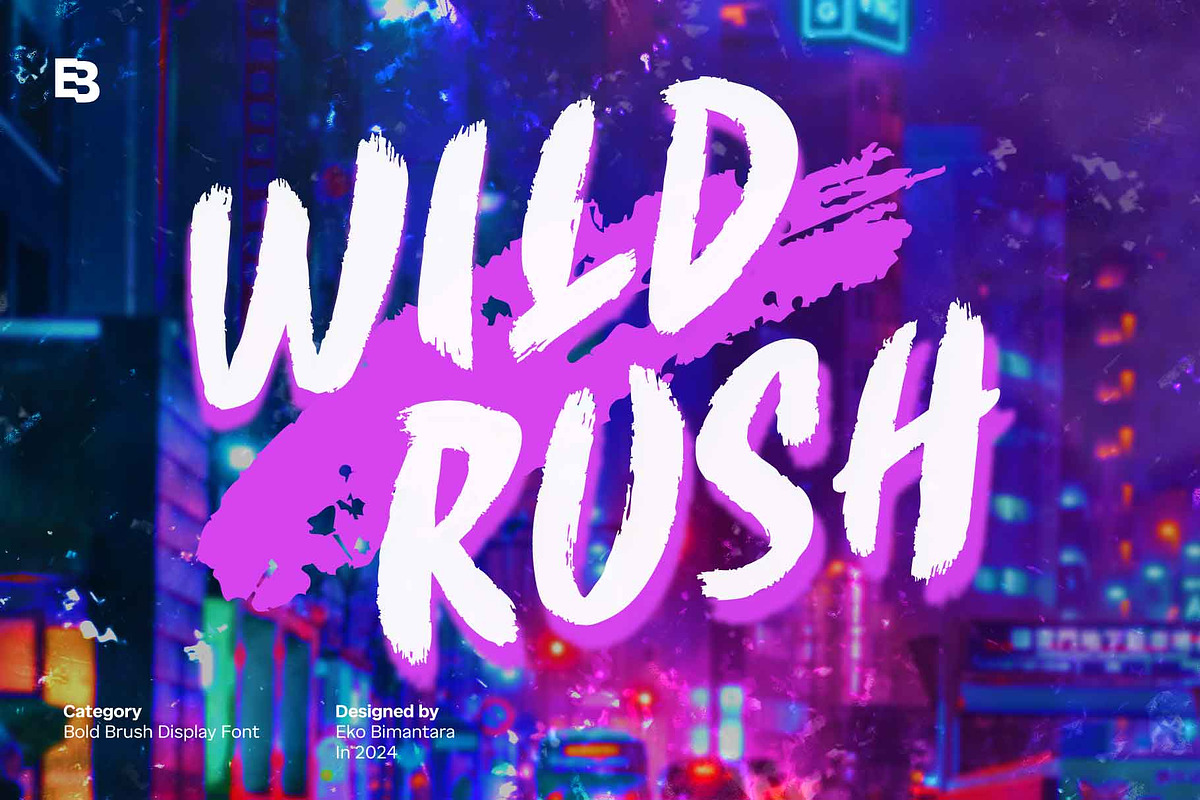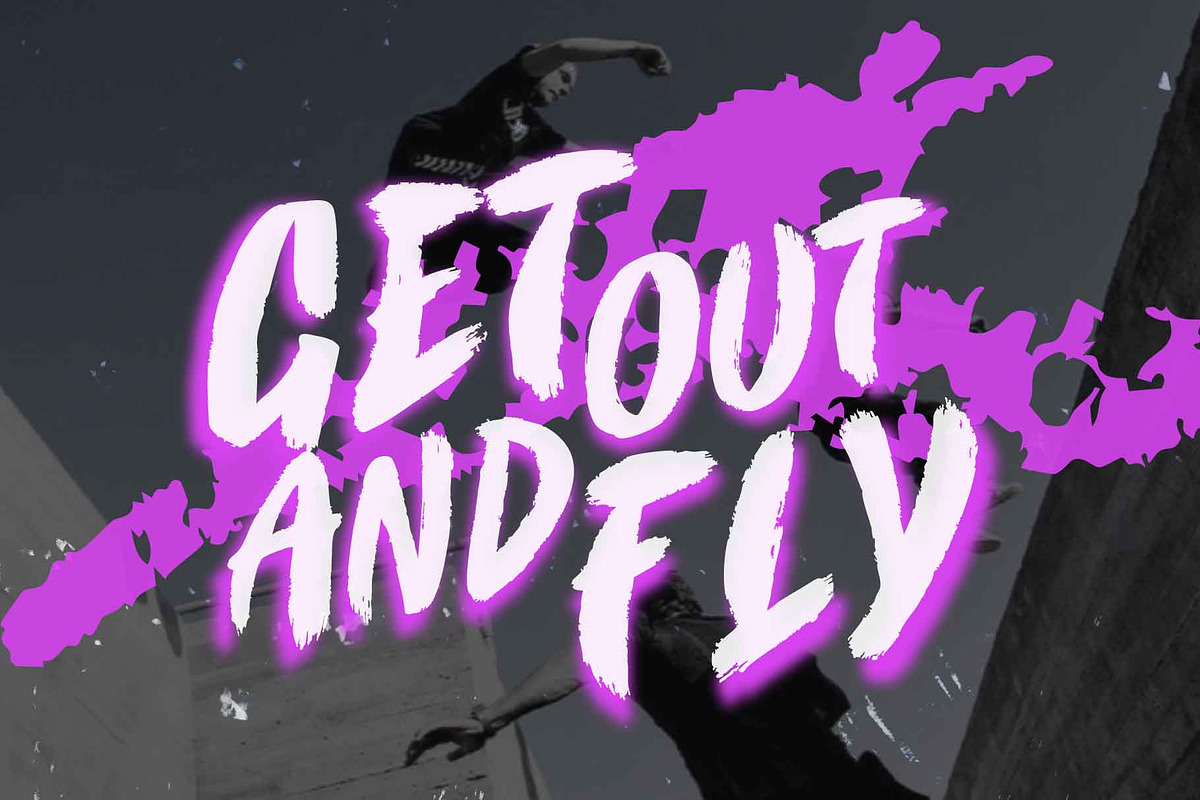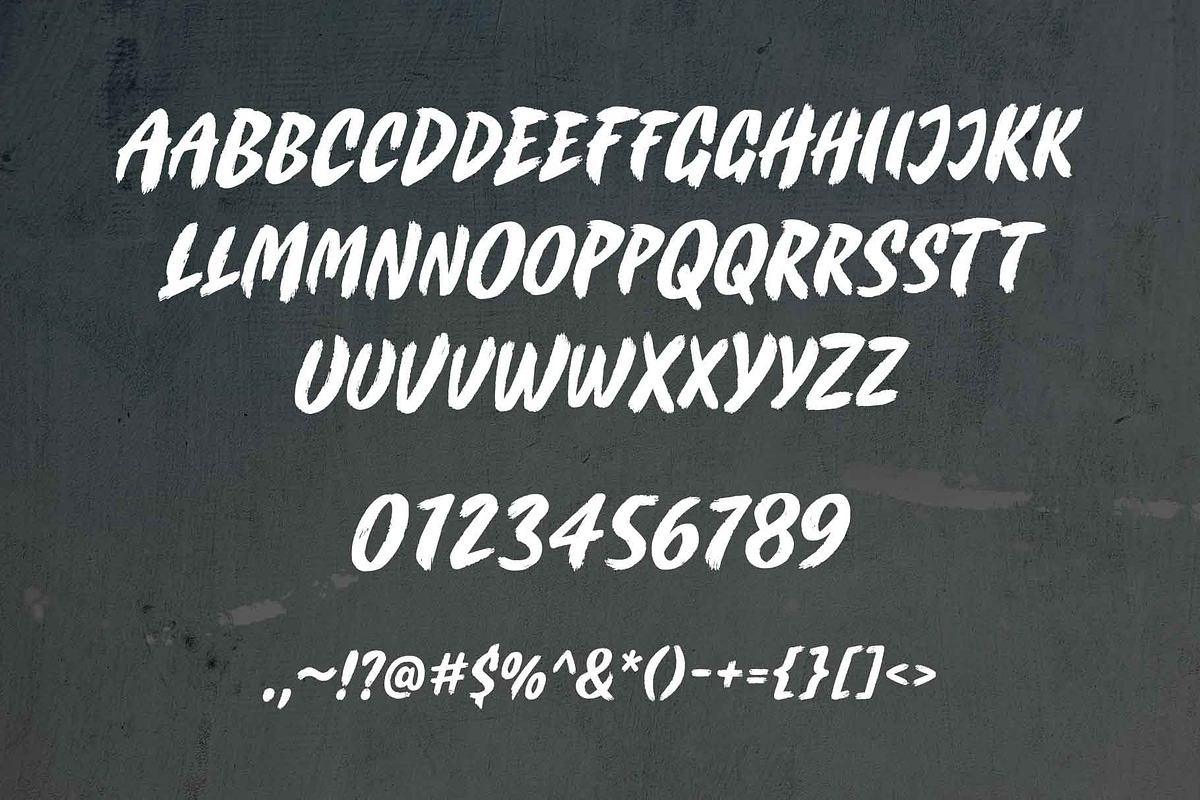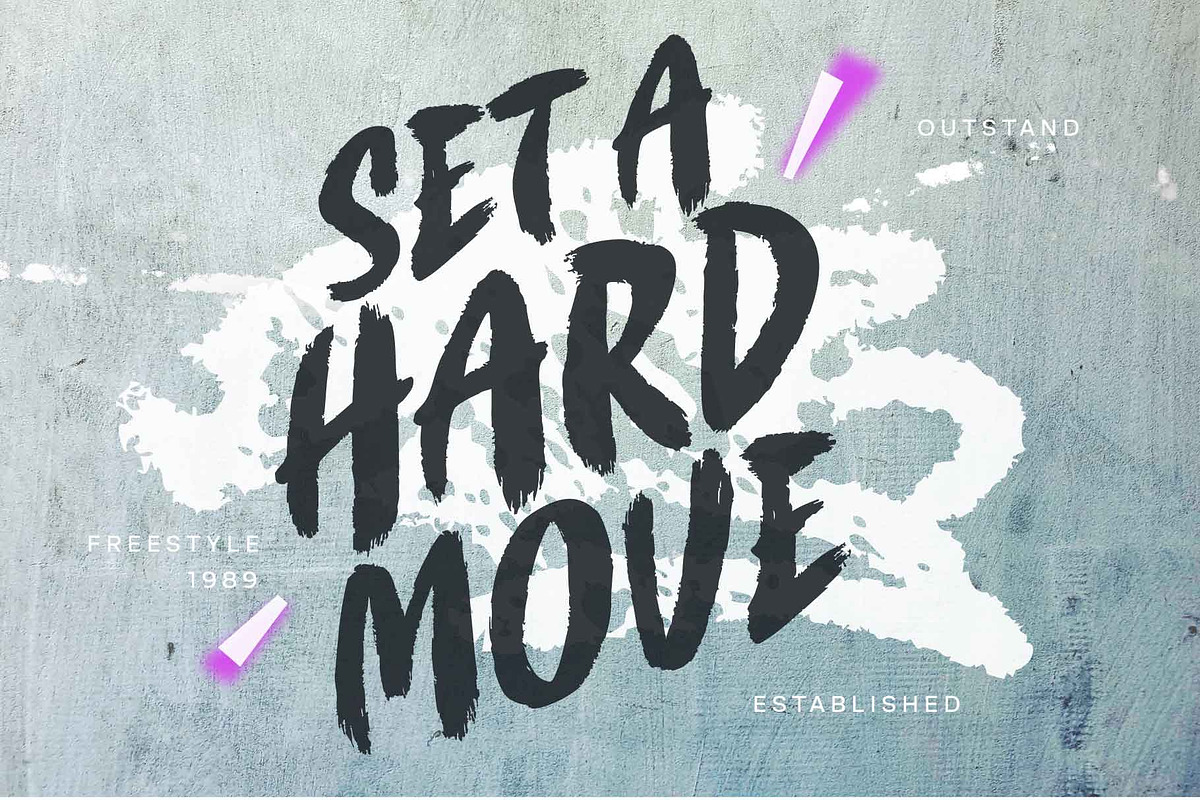
Wild Rush; Bold Brush Display Font
Wild Rush is an all-caps brush display font with realistic brush strokes, delivering a masculine and expressive aesthetic. Perfect for modern and futuristic themes, it adds a bold, artistic edge to branding, titles, products, and posters. Ideal for large-size displays and headers, Wild Rush is versatile across various design applications including websites, brand identity, product packaging, and broad graphic design and creative purposes, making it an excellent choice for impactful and dynamic projects.